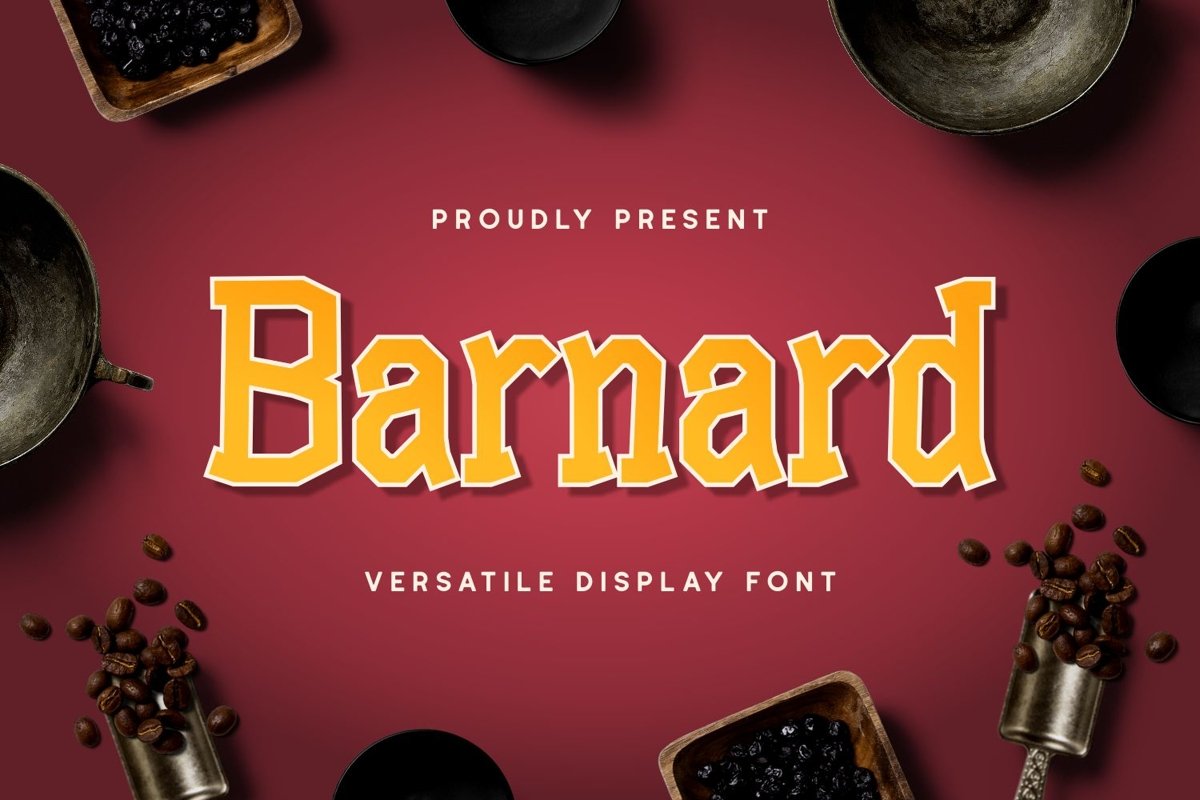
Barnard is serif display come with versatile themes. We wanted to create the most unique character. It matches applies in some designs such as the logotype, brand, packaging, quotes, cute poster, kids shirt, cover book, birthday invitation and more custom design. The features uppercase, lowercase, numeral, punctuation & symbol, multilingual support.
Barnard